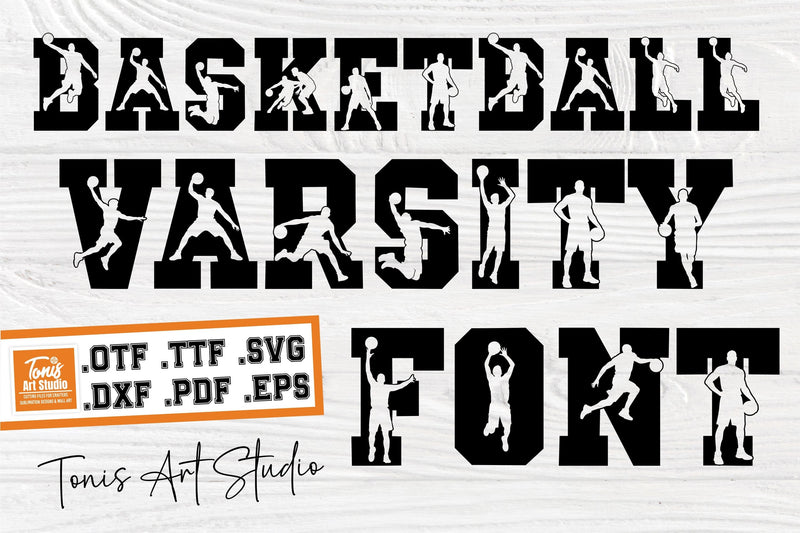
Basketball Varsity Font | Athletic Alphabet with Player Silhouettes | SVG OTF TTF
A Bold Basketball Alphabet Font SVG OTF, inspired by the energy, movement, and passion of the game. This powerful athletic font features strong block letters filled with dynamic basketball player silhouettes in action, creating a striking and sporty visual impact. Each letter is designed to stand out while remaining highly readable, making it perfect for bold designs that demand attention.